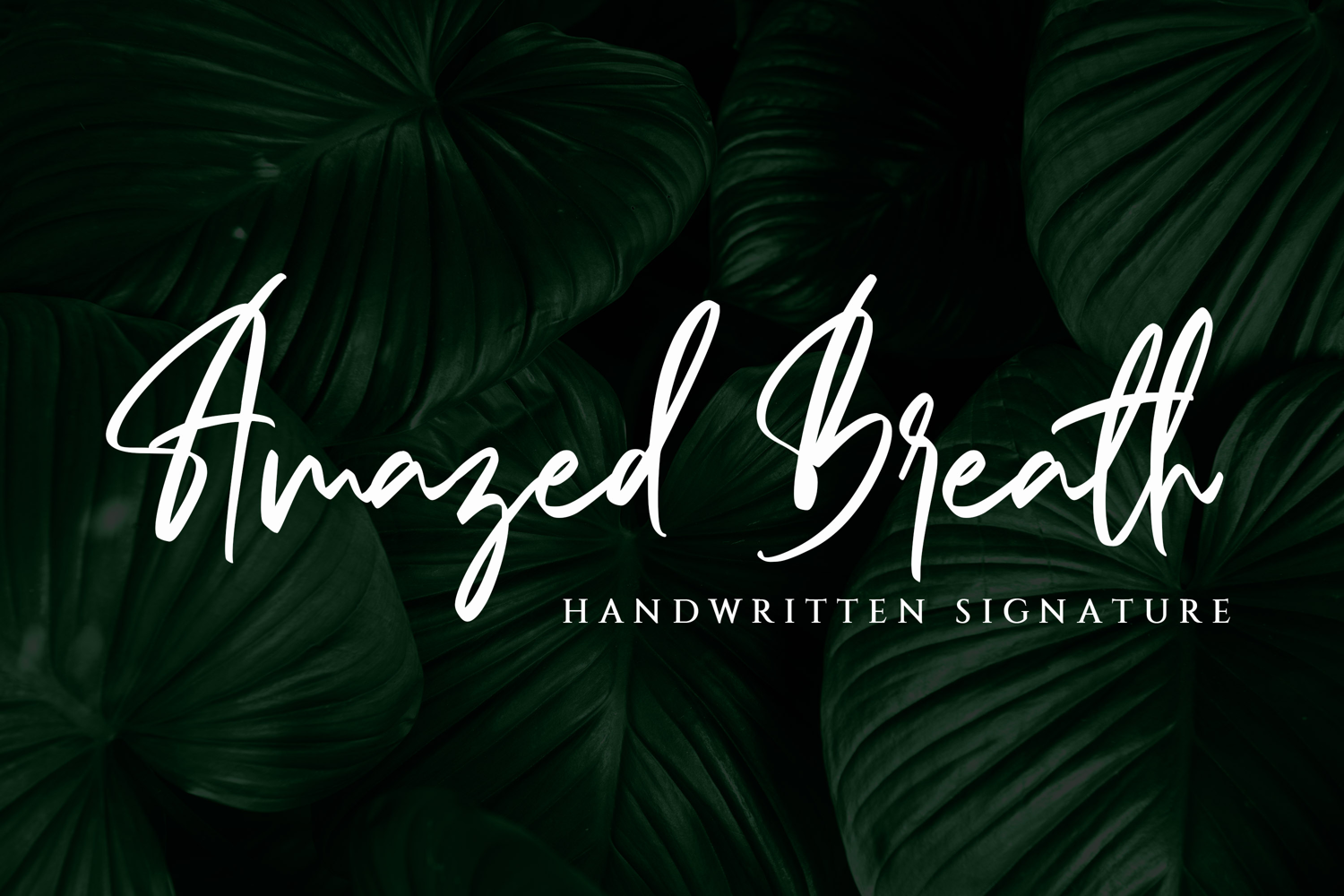
Amazed Breath - Handwritten Signature
Introducing Amazed Breath Font is a Classy Script font with 2 style regular and Slant. Inspired by luxury and branded stuffs make this font looks classy and awesome in many way to your latest project. Amazed Breath Font is perfect for logos & branding, photography, invitation, watermark, advertisements,product designs, stationery, wedding designs,label ,product packaging, special events or anything that need handwritting taste.